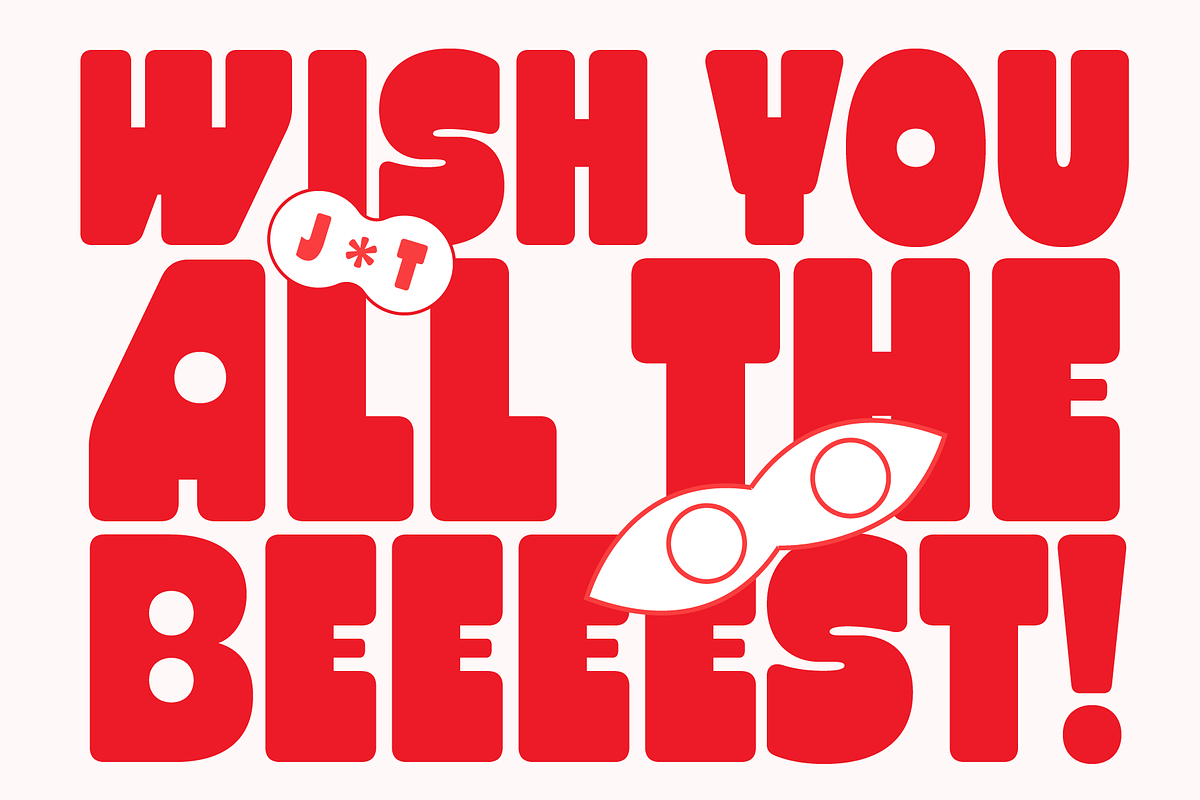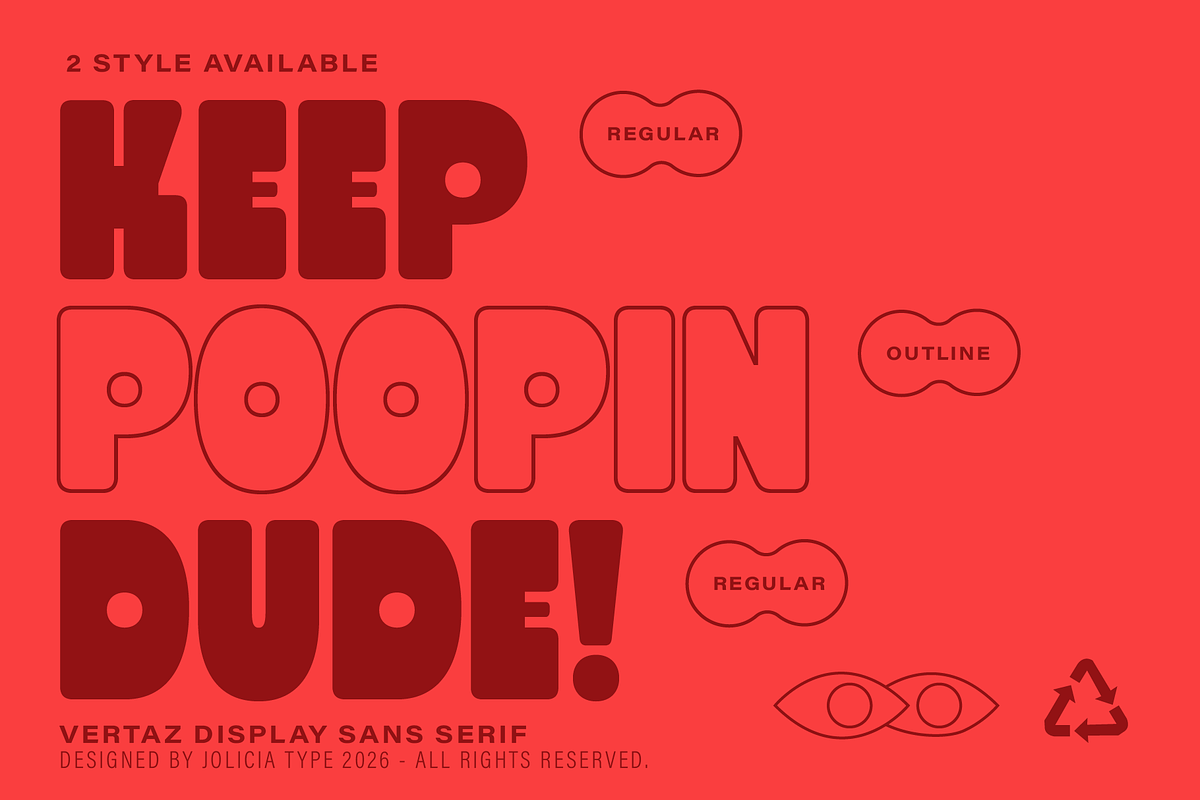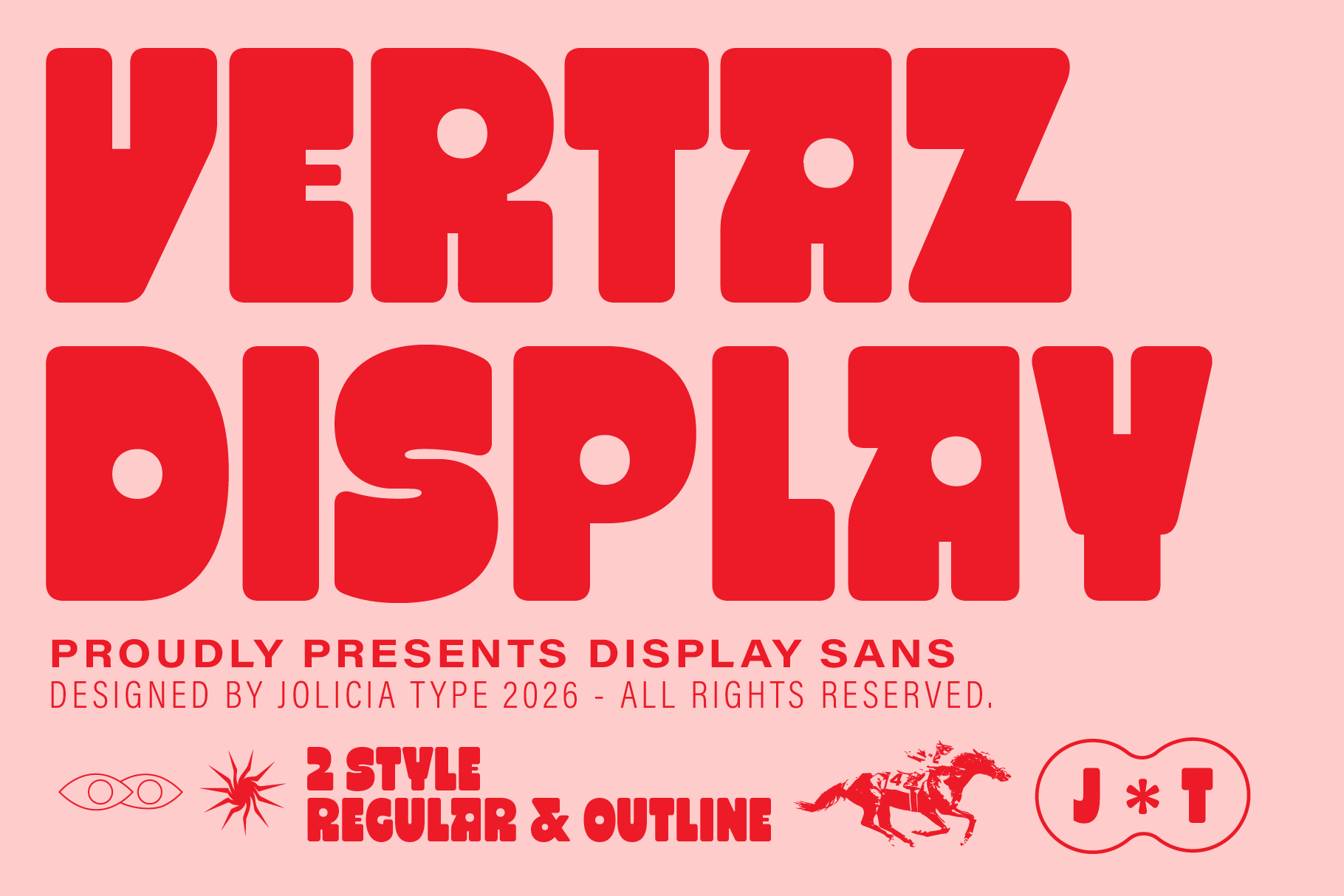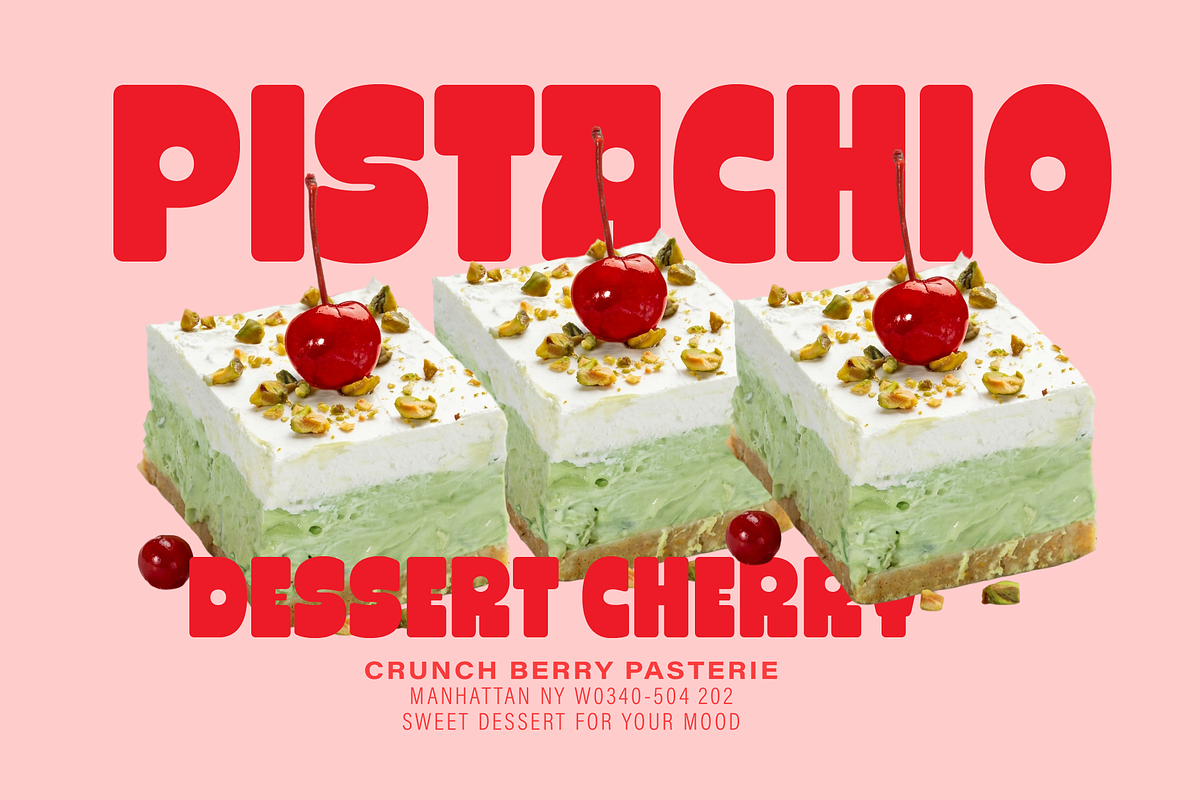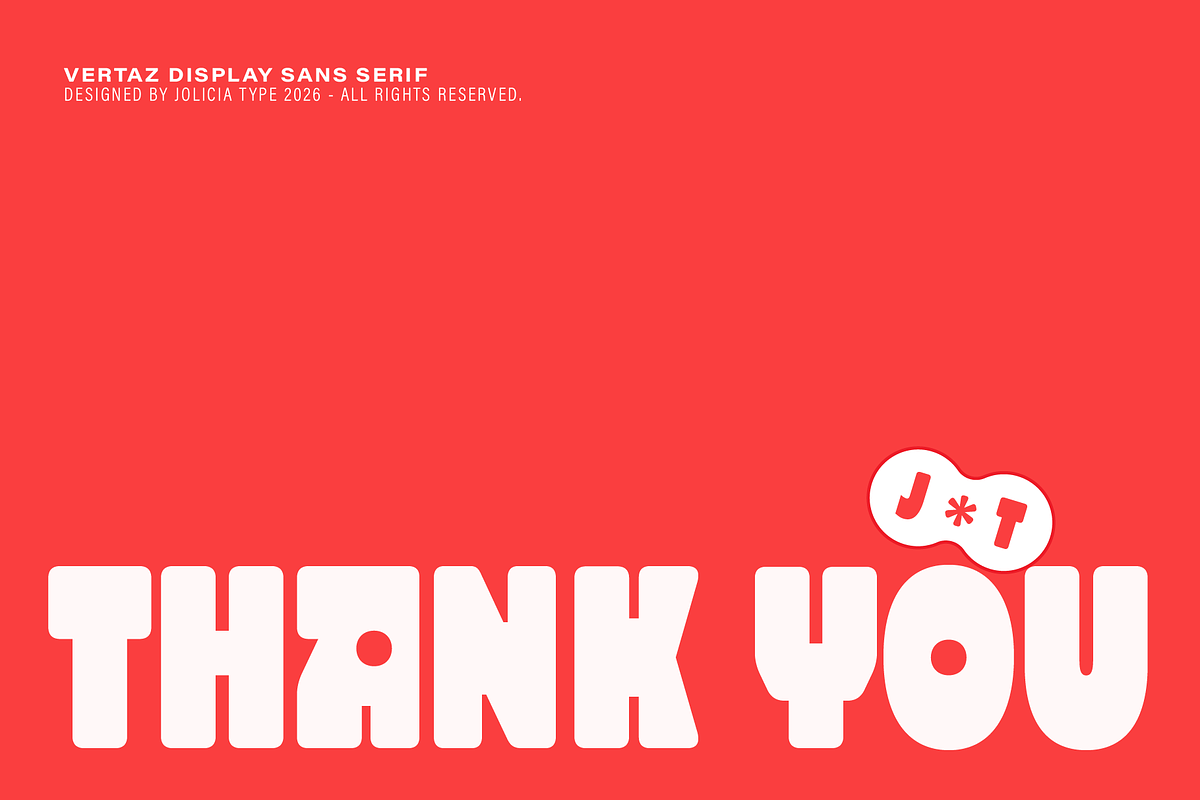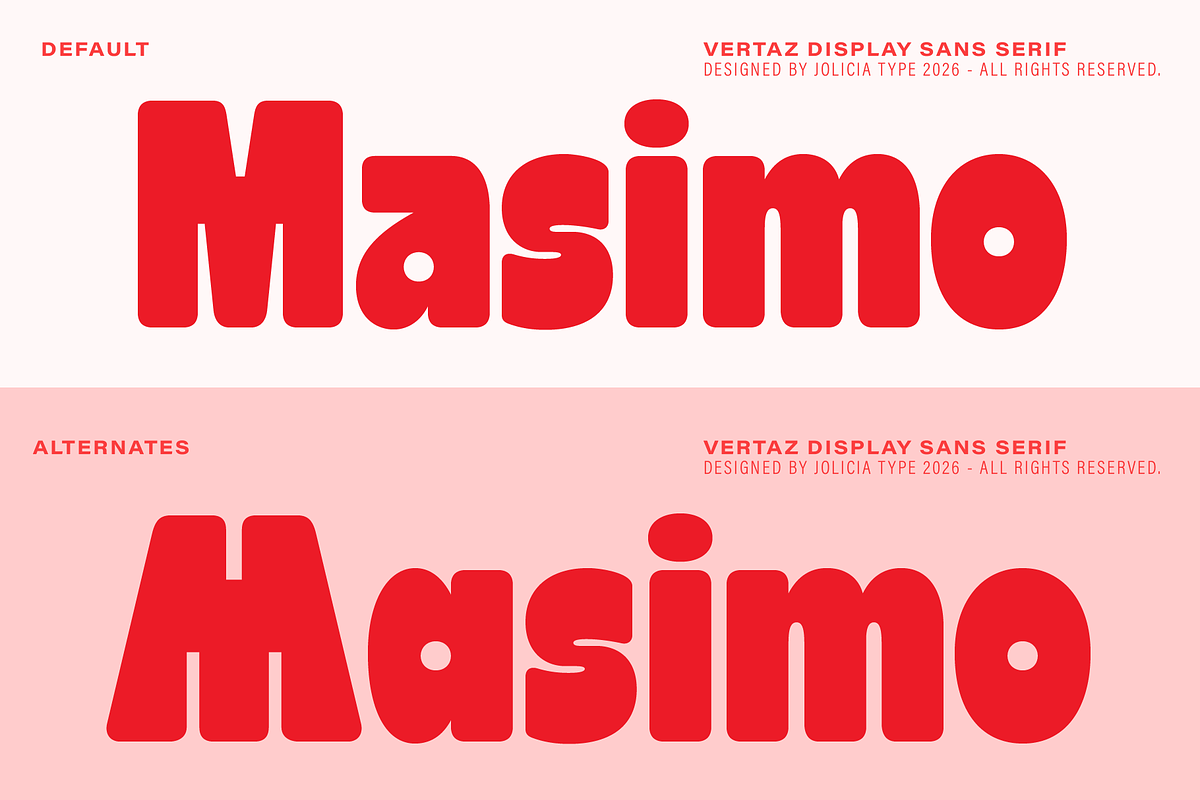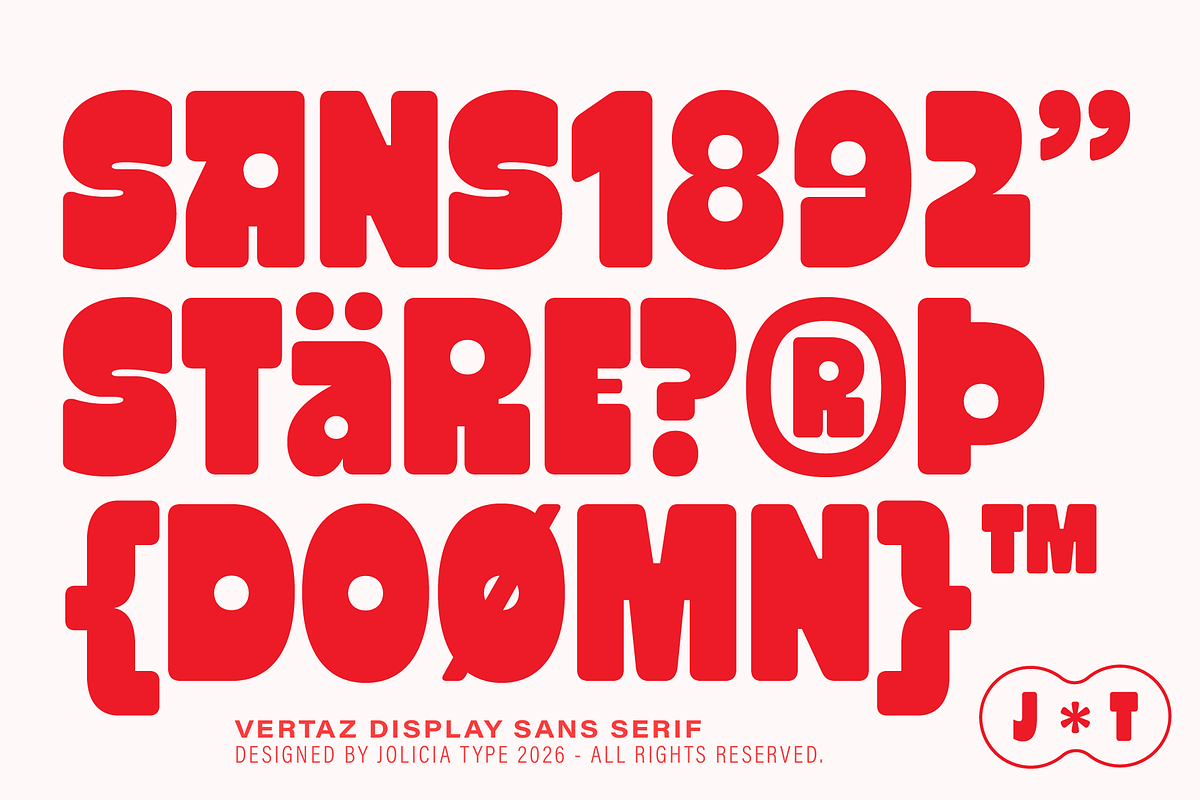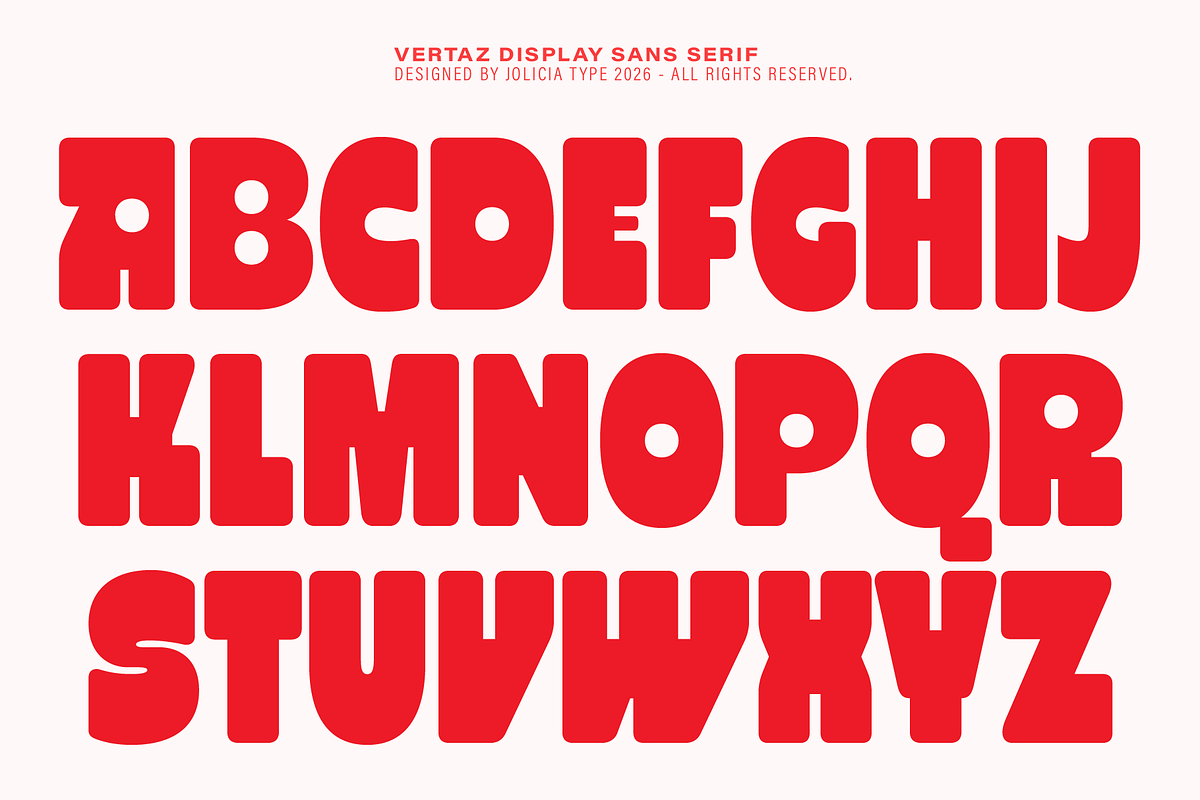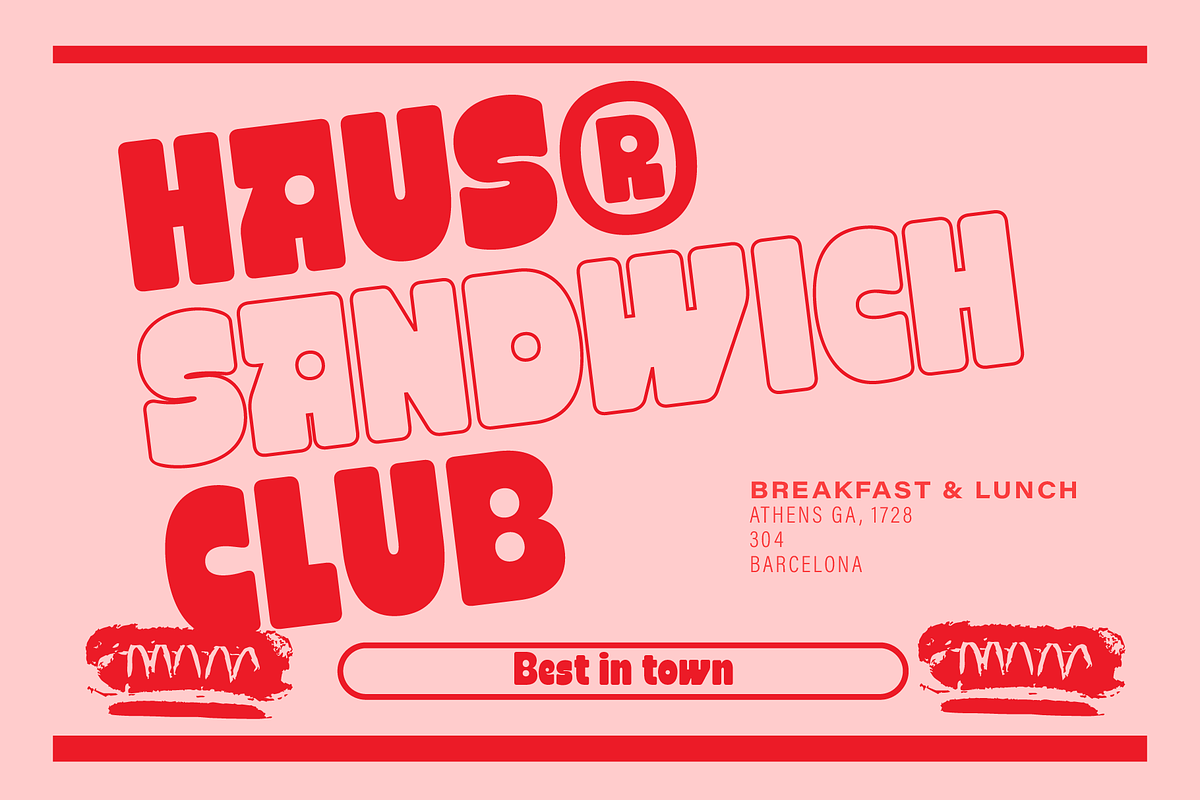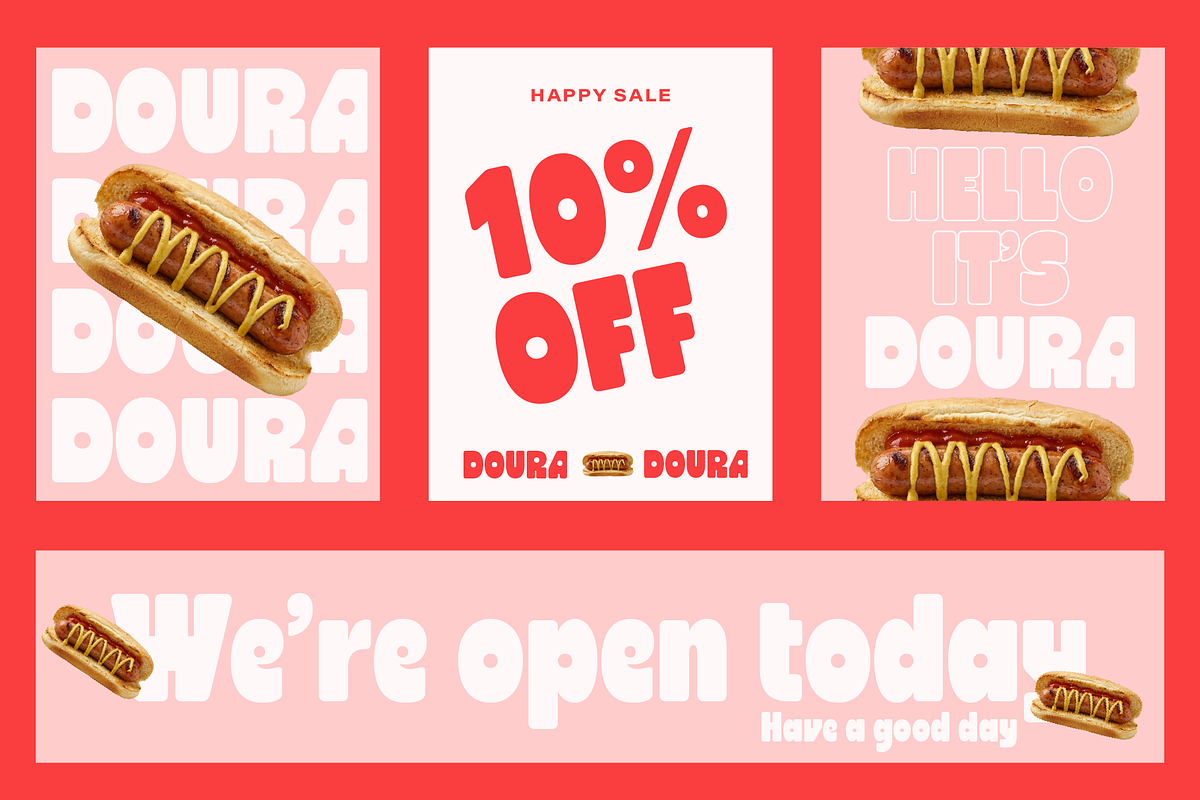
Vertaz Display | Chunky Font
Vertaz Display is a bold and chunky display typeface designed to make a statement. With its oversized proportions, rounded corners, and distinctive geometric cuts, Vertaz brings a playful yet powerful character to headlines and display compositions.
The family comes in 2 styles — Regular and Outline, giving you the flexibility to create solid, impactful typography or a more expressive outlined look.
Its heavy forms and unconventional details make Vertaz Display especially suitable for branding, posters, packaging, apparel, signage, headlines, logos, and experimental graphic design. Its distinctive personality also works beautifully for editorial layouts, social media graphics, merchandise, and eye-catching visual campaigns.